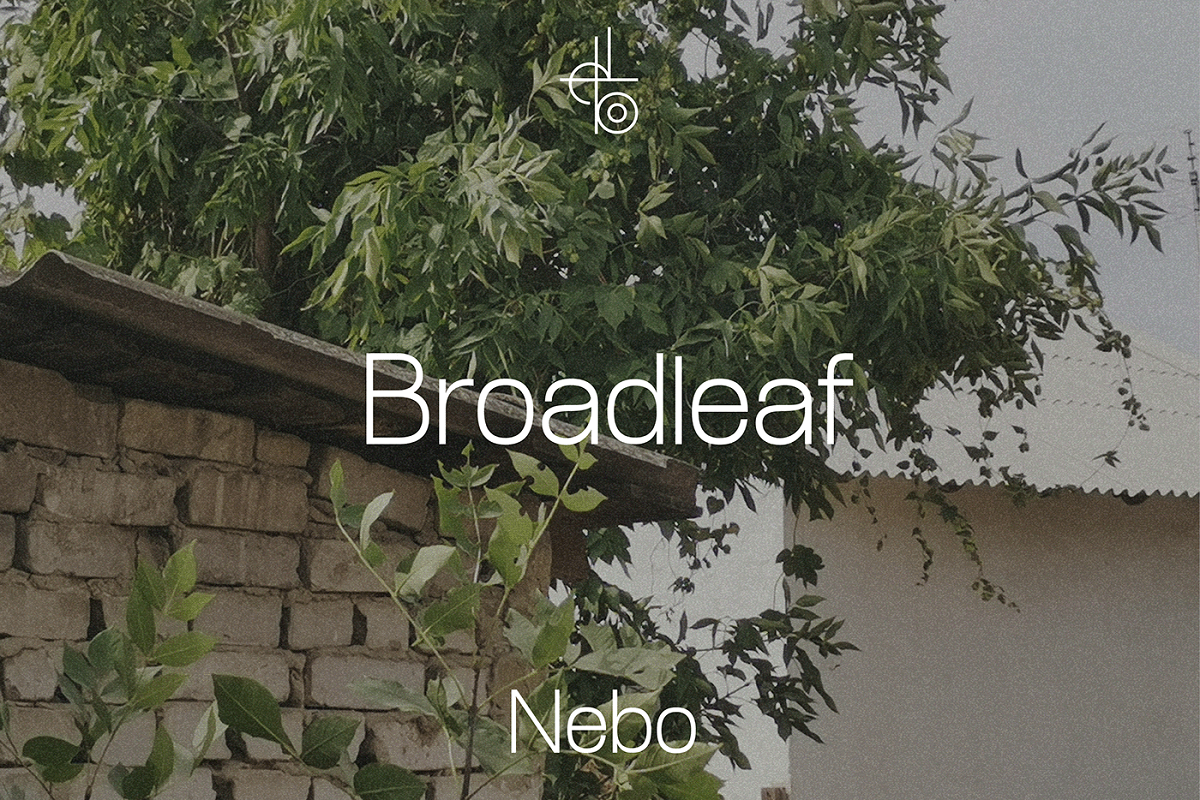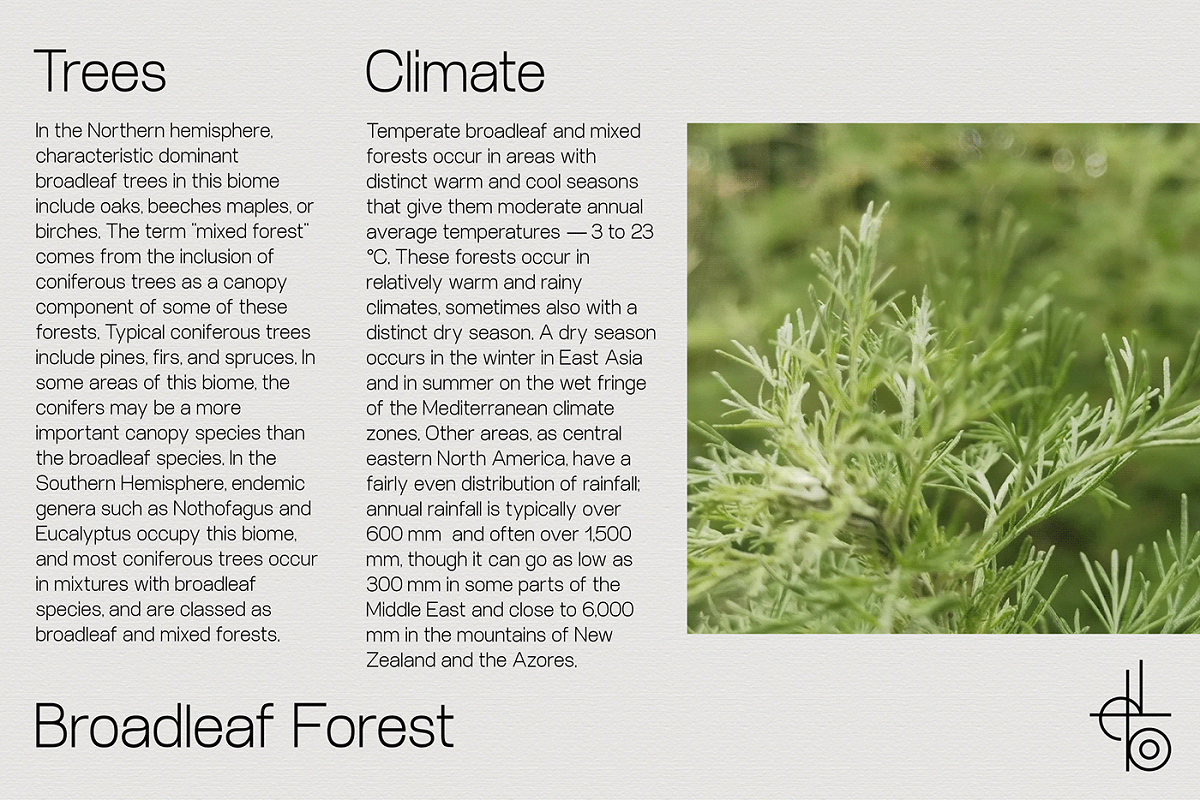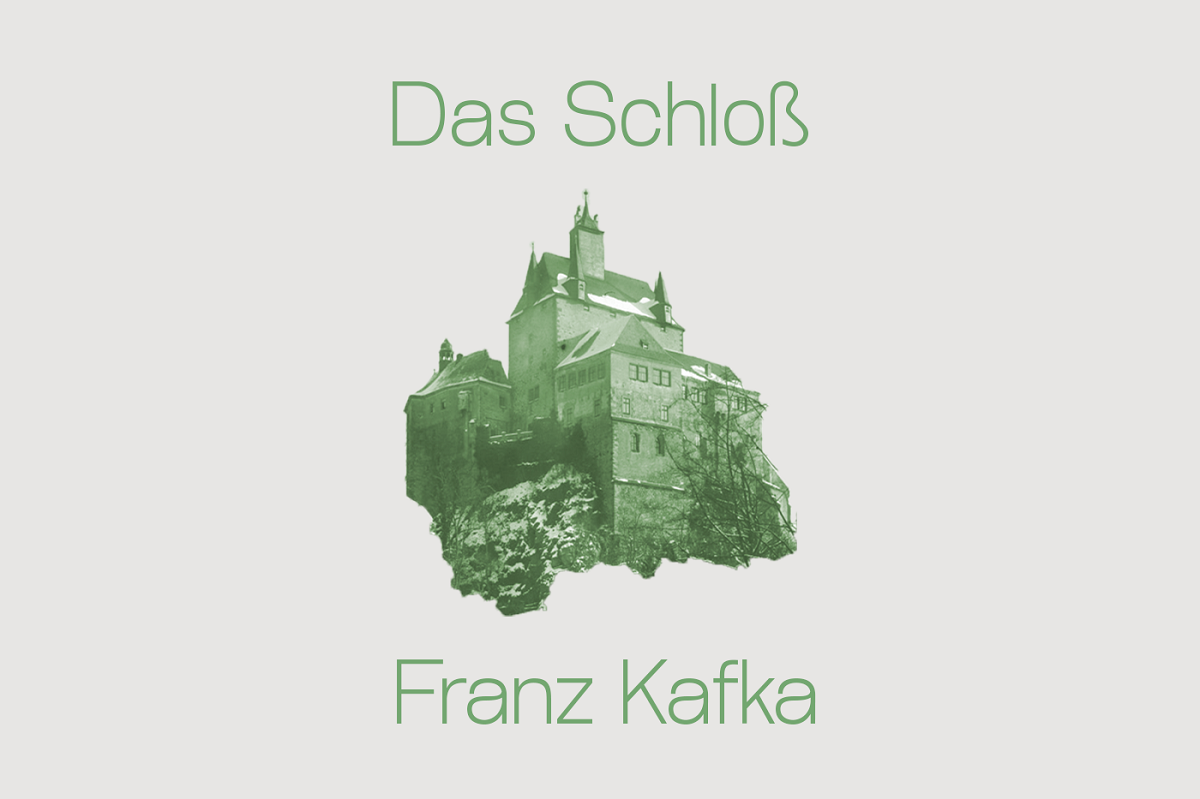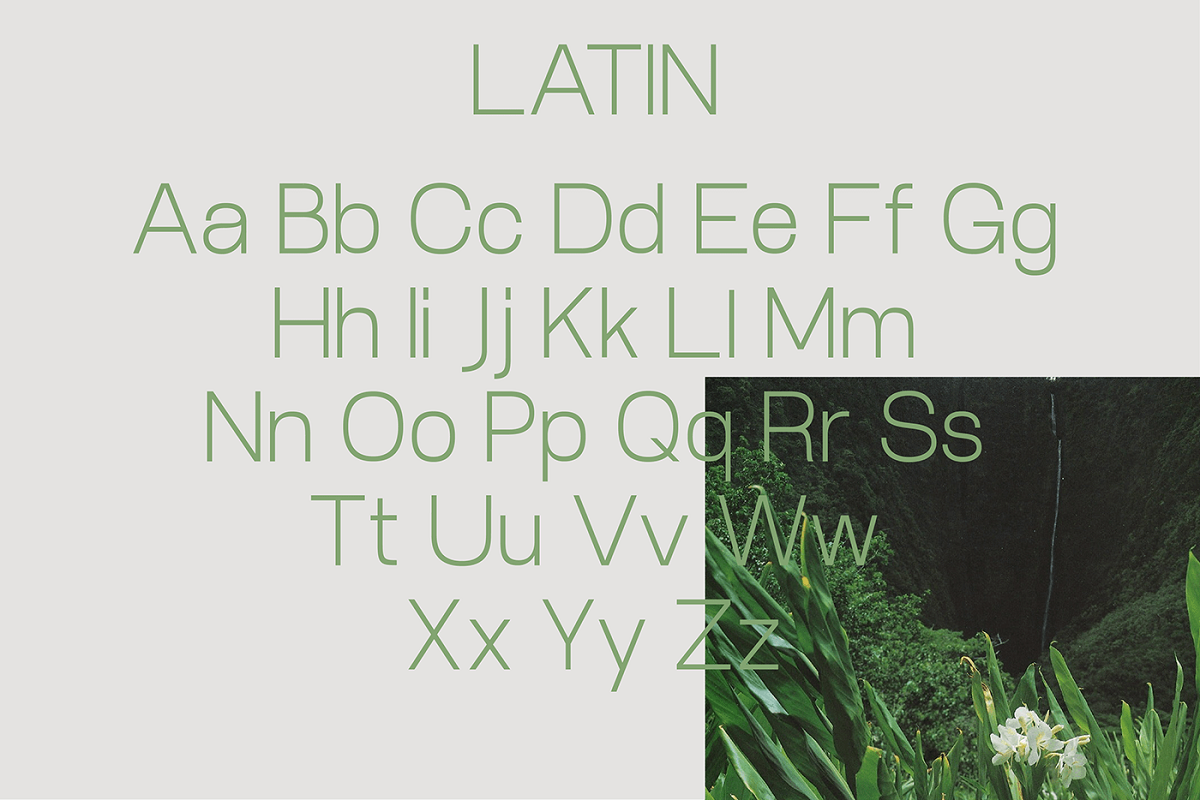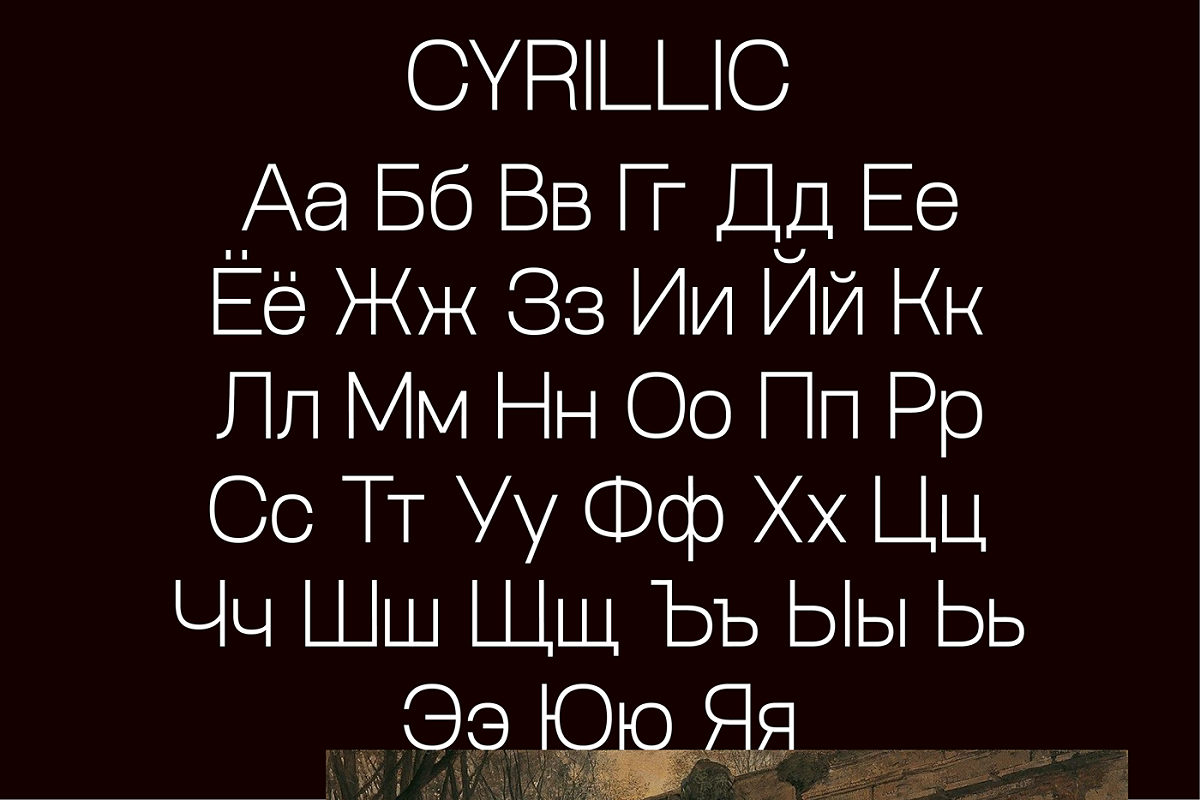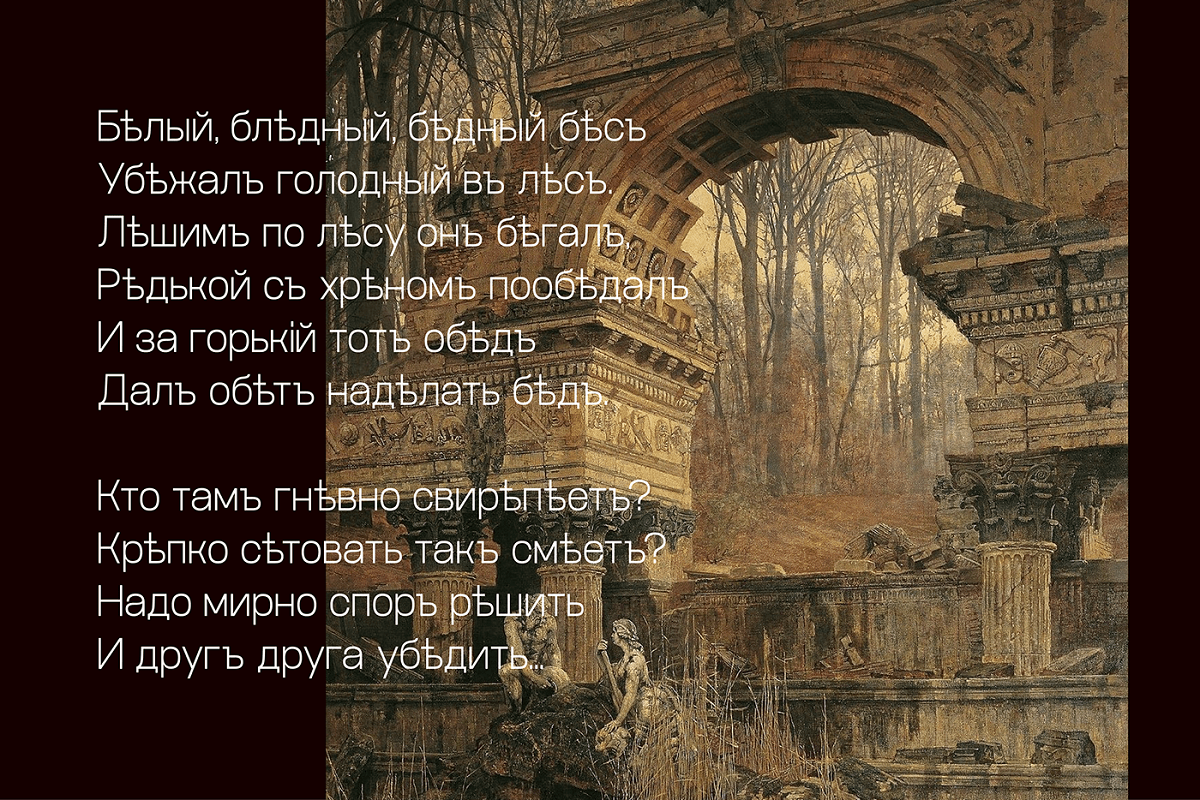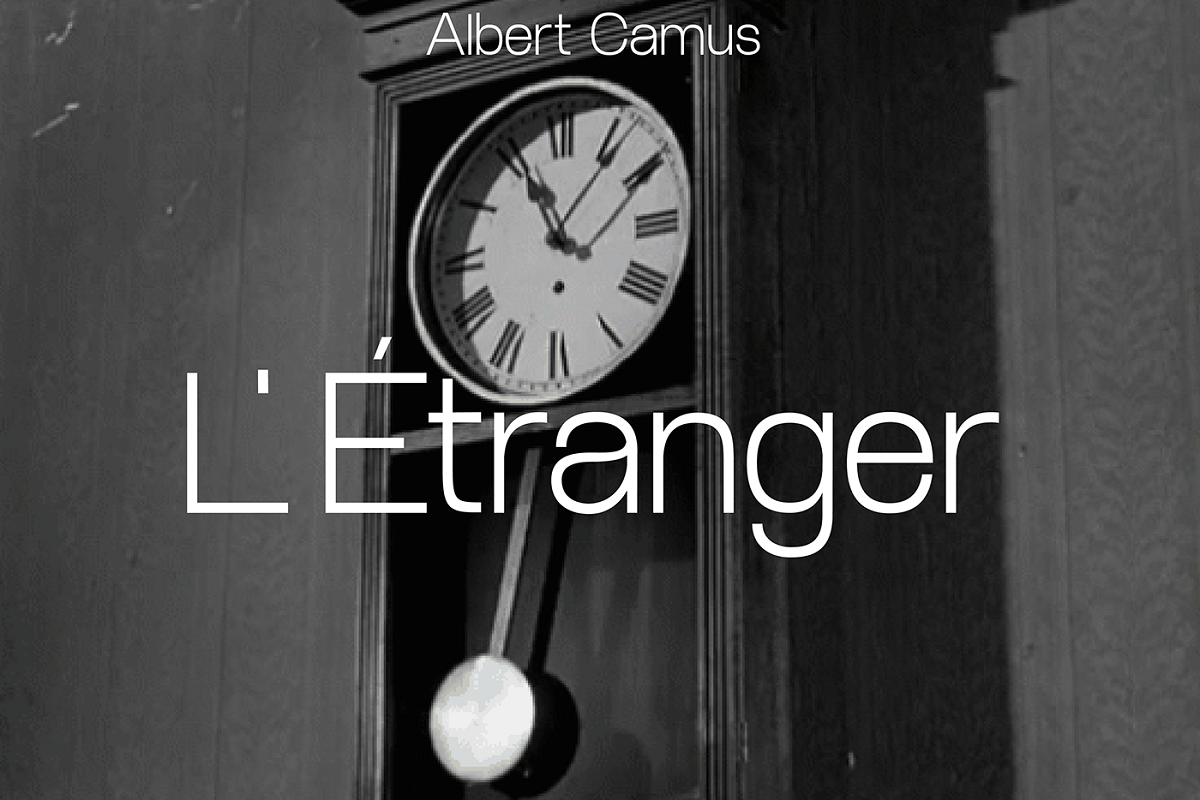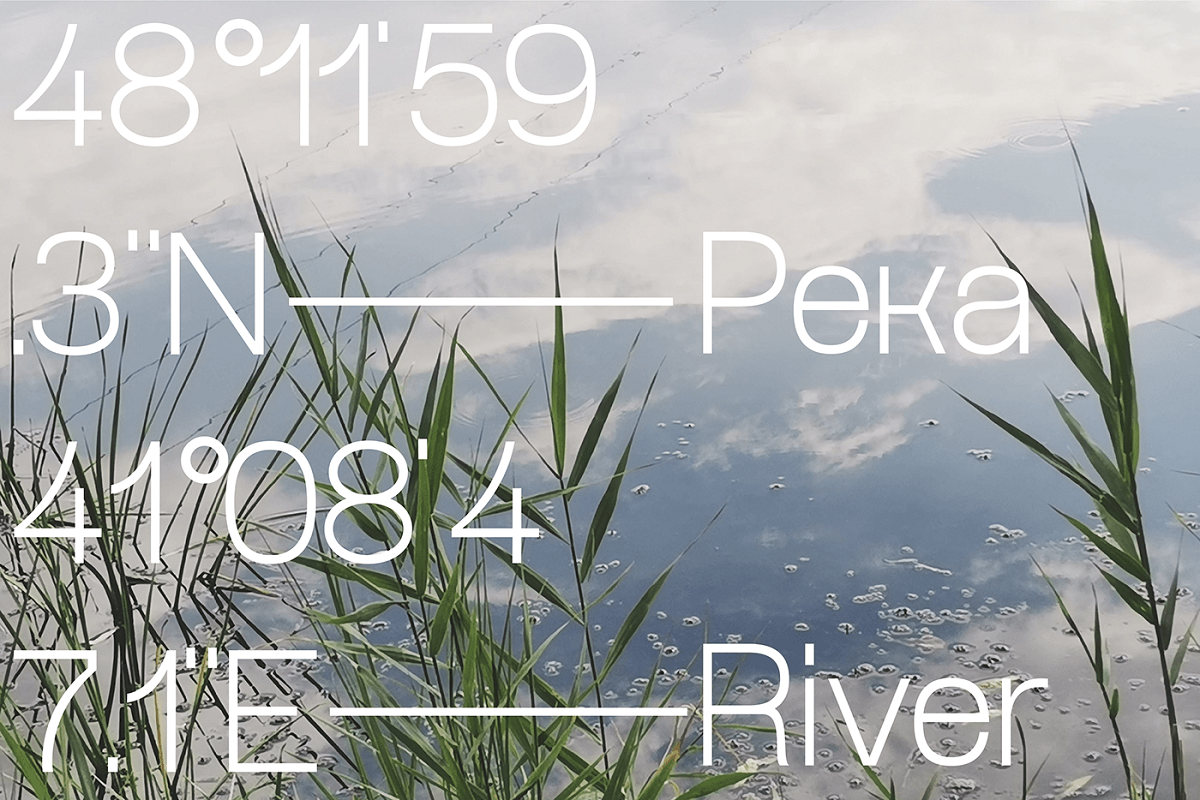
Broadleaf – Display Font is the latest work coming from Eduard Chernov. Its sharp and clean look makes this display font is ideal for posters and titles. Hence, it will work great for sports ads and Instagram or social media ads, logo, branding and a lot more. In addition, it is free for both personal and commercial use!
Broadleaf